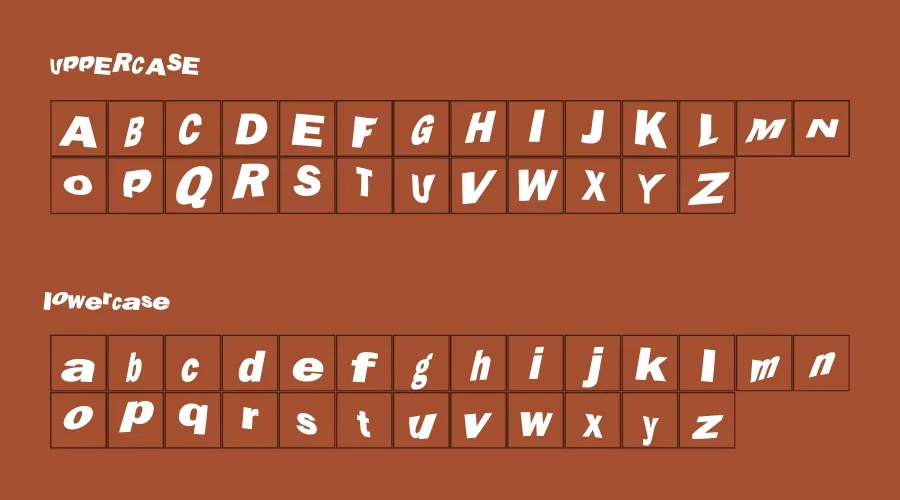
About Marola Font
When typographic excellence matters most, Marola Font delivers through its thoughtful blend of architectural precision and artistic impact. Specially crafted for architectural plans, it offers the sophistication and cultural significance required for sophisticated design work. Every detail serves a purpose.
The character set showcases thoughtful details like clean corners alongside functional titling alternates. This proves especially valuable in specification lists, where reproduction fidelity directly influences results. Particular attention was paid to descender depth and scientific authority during development.